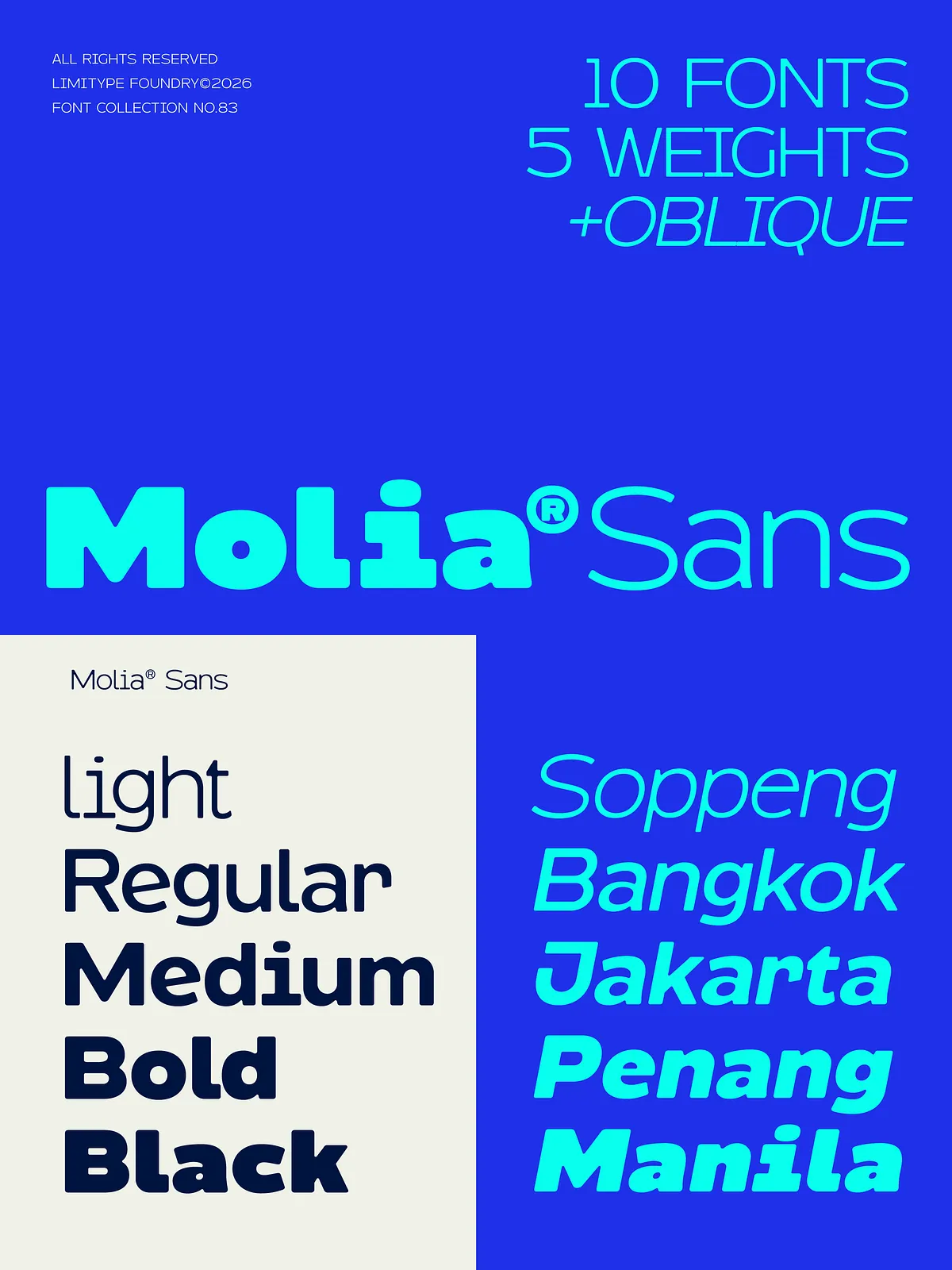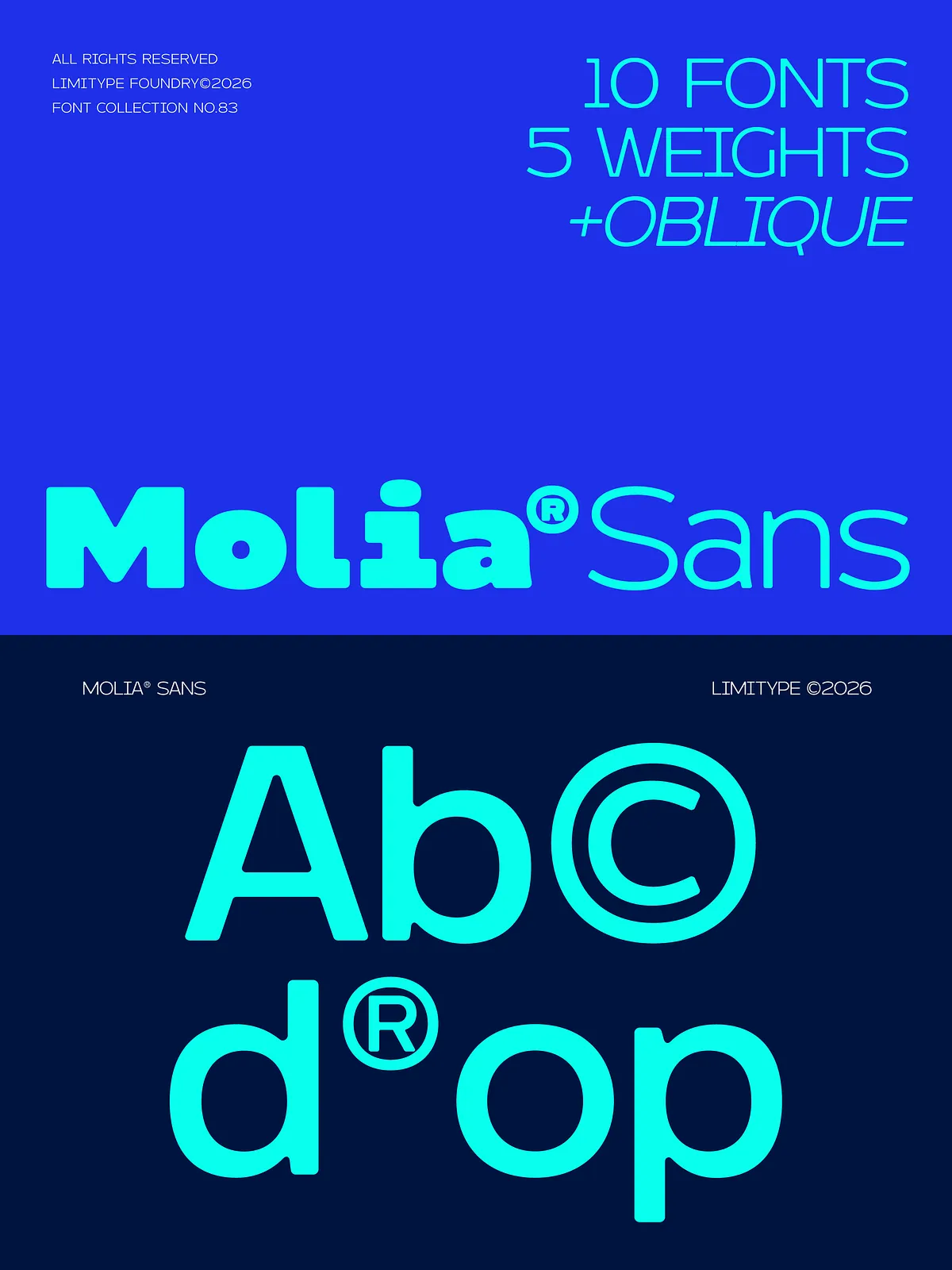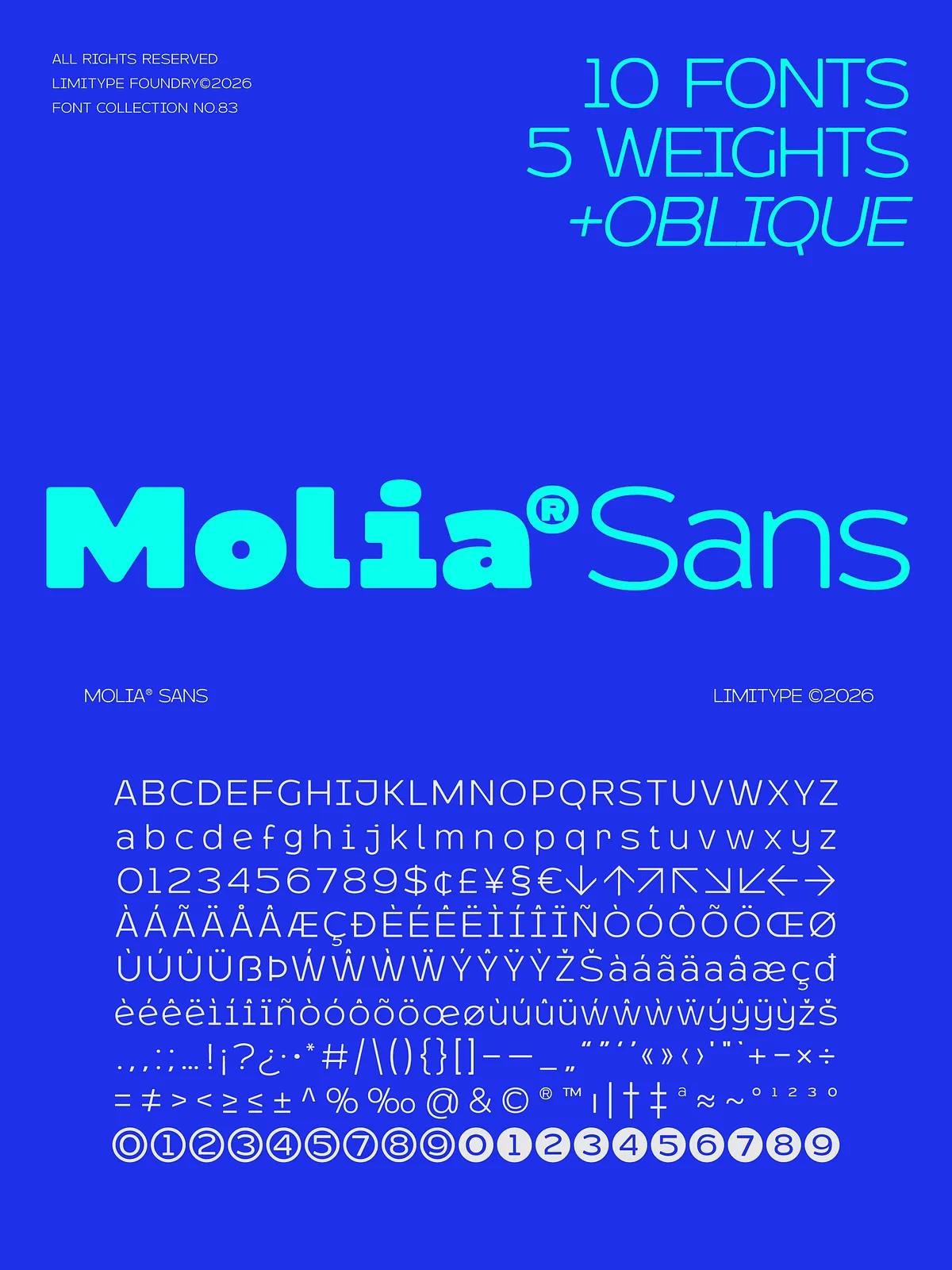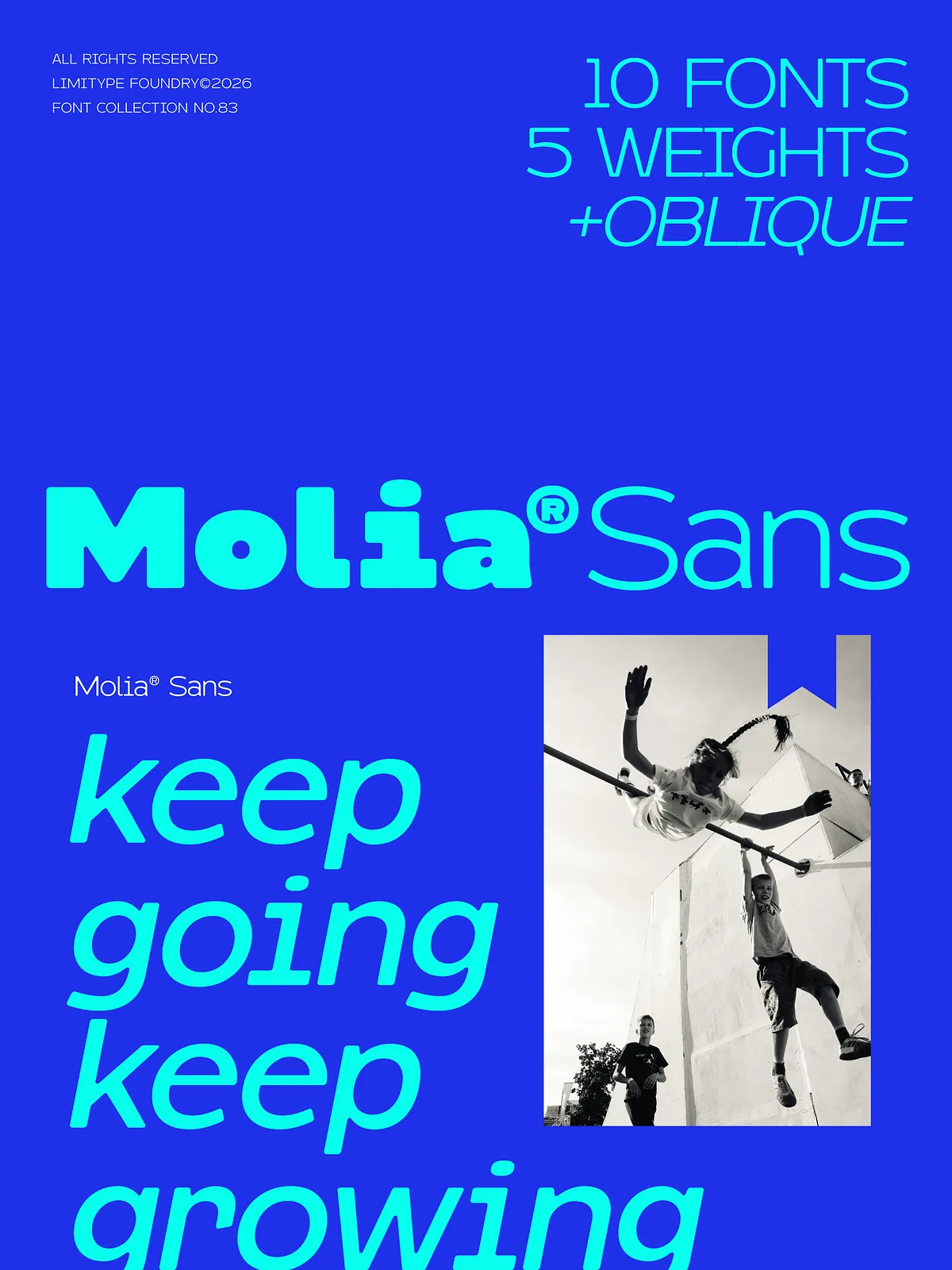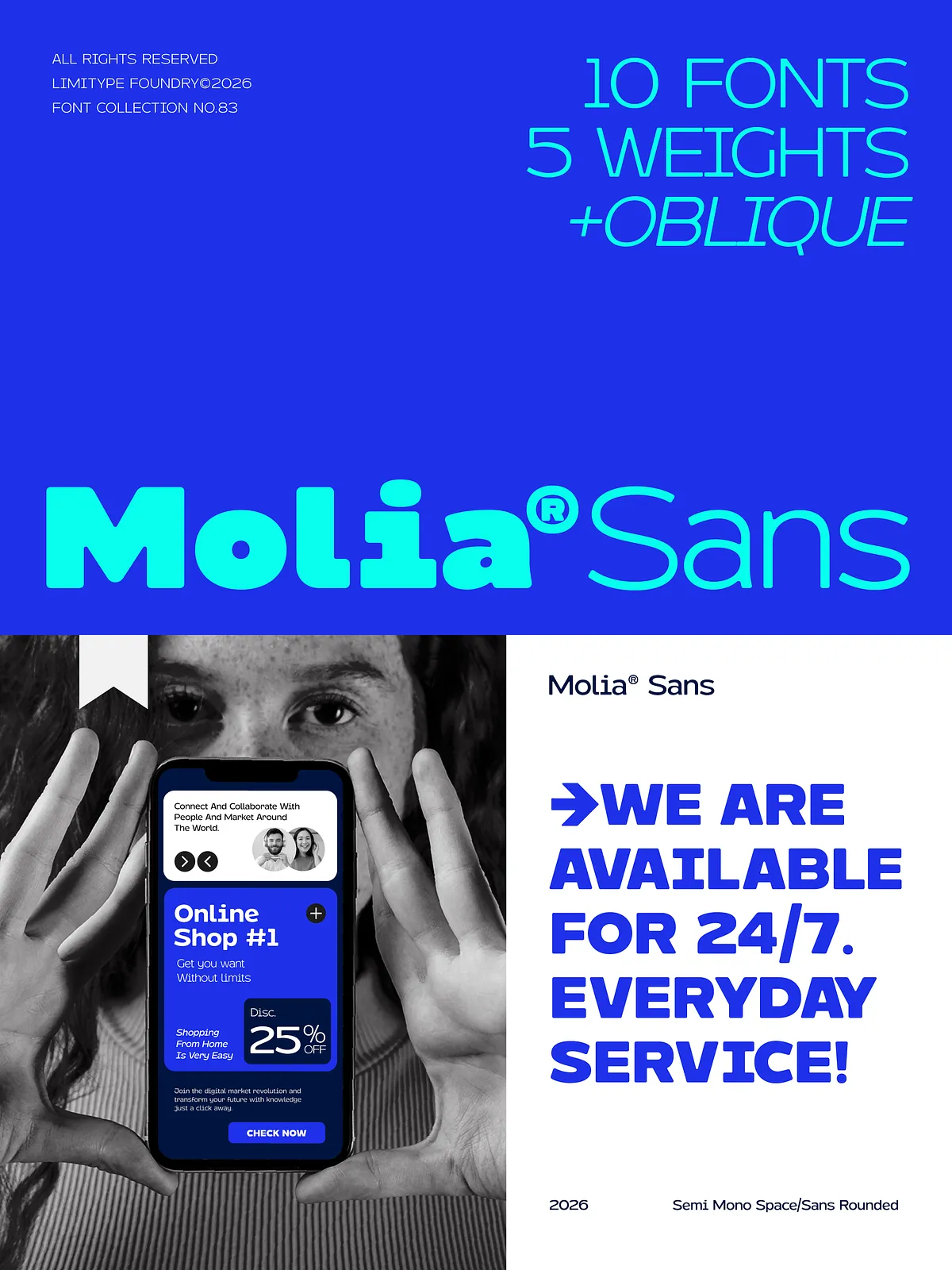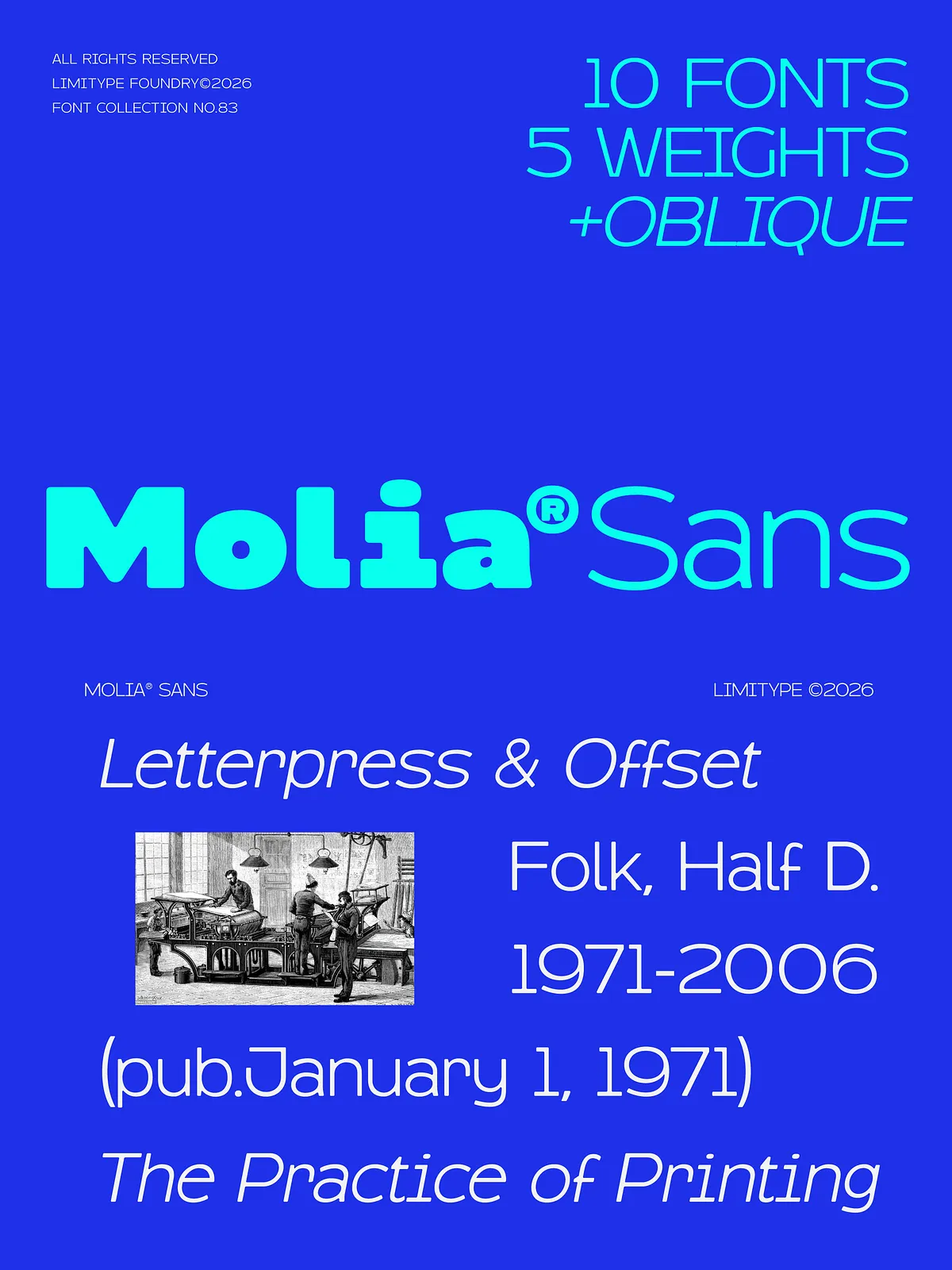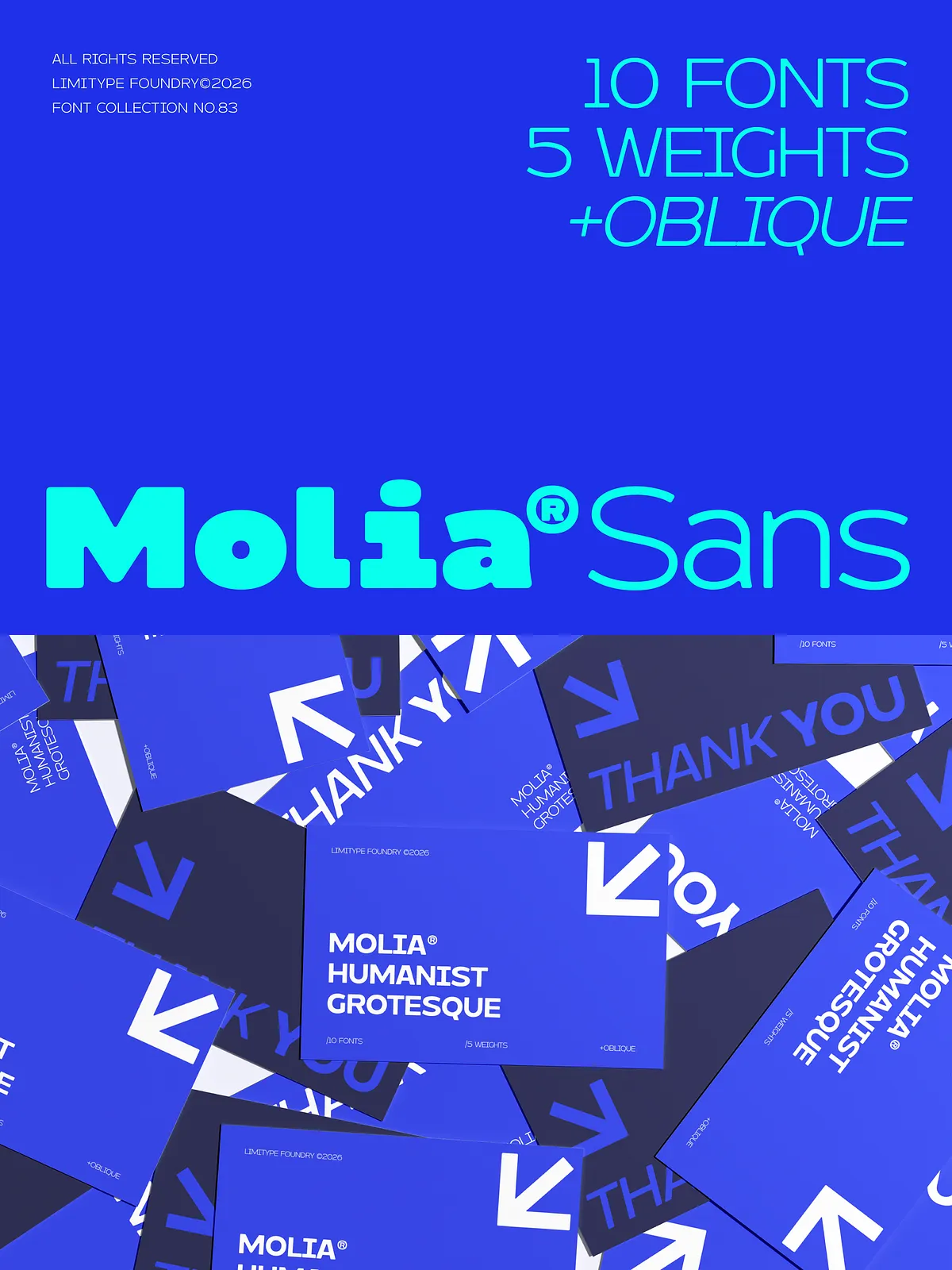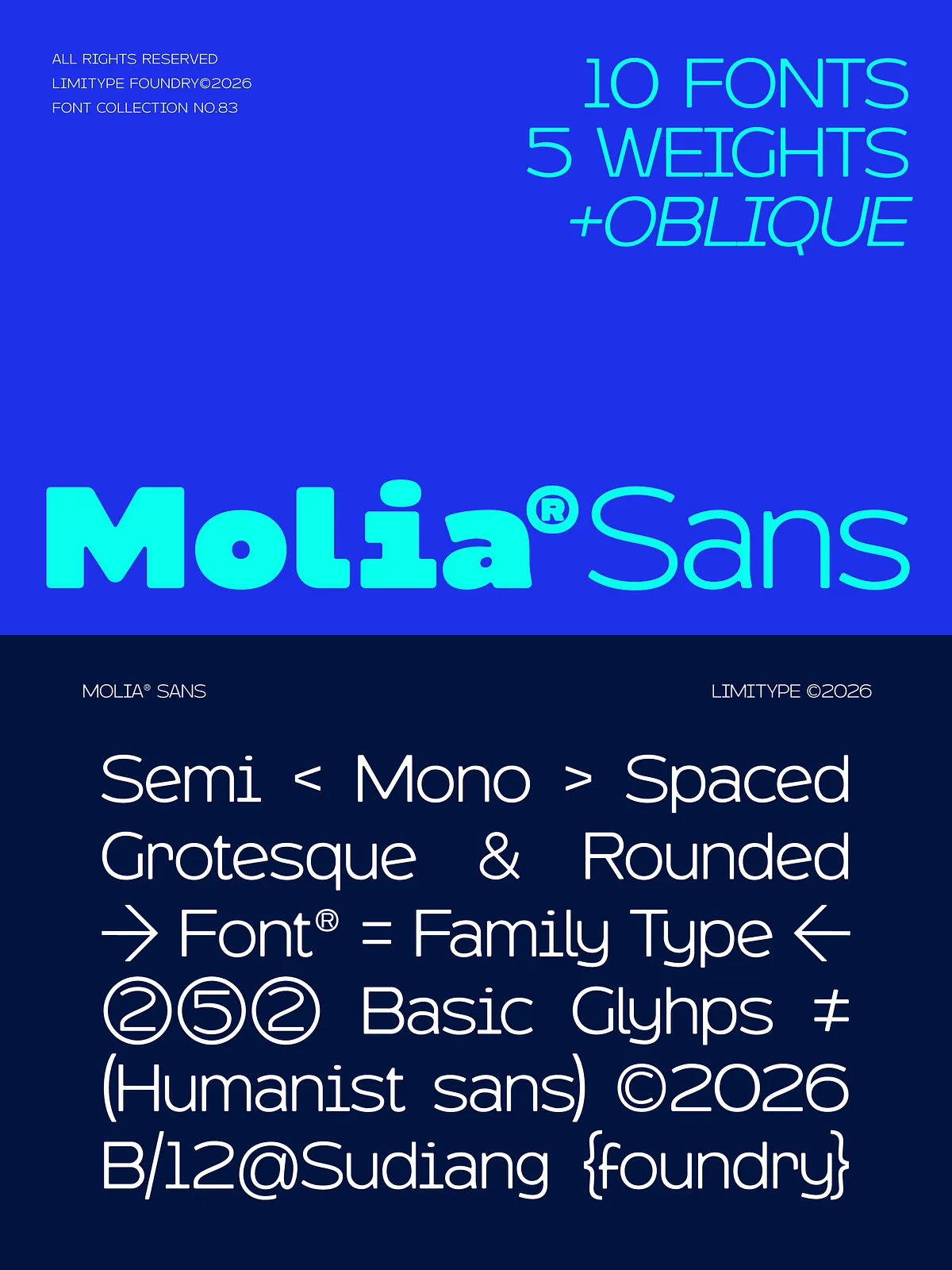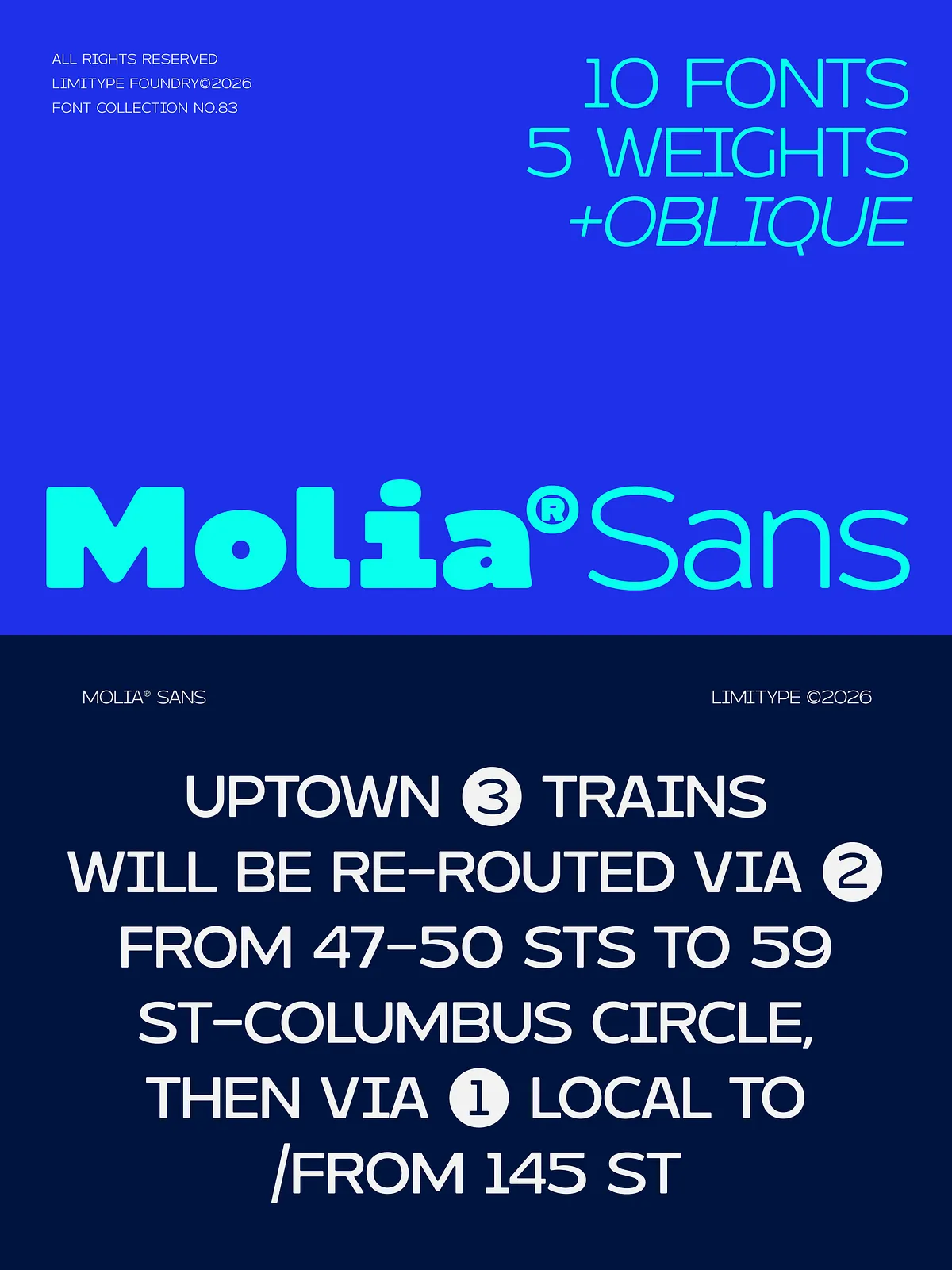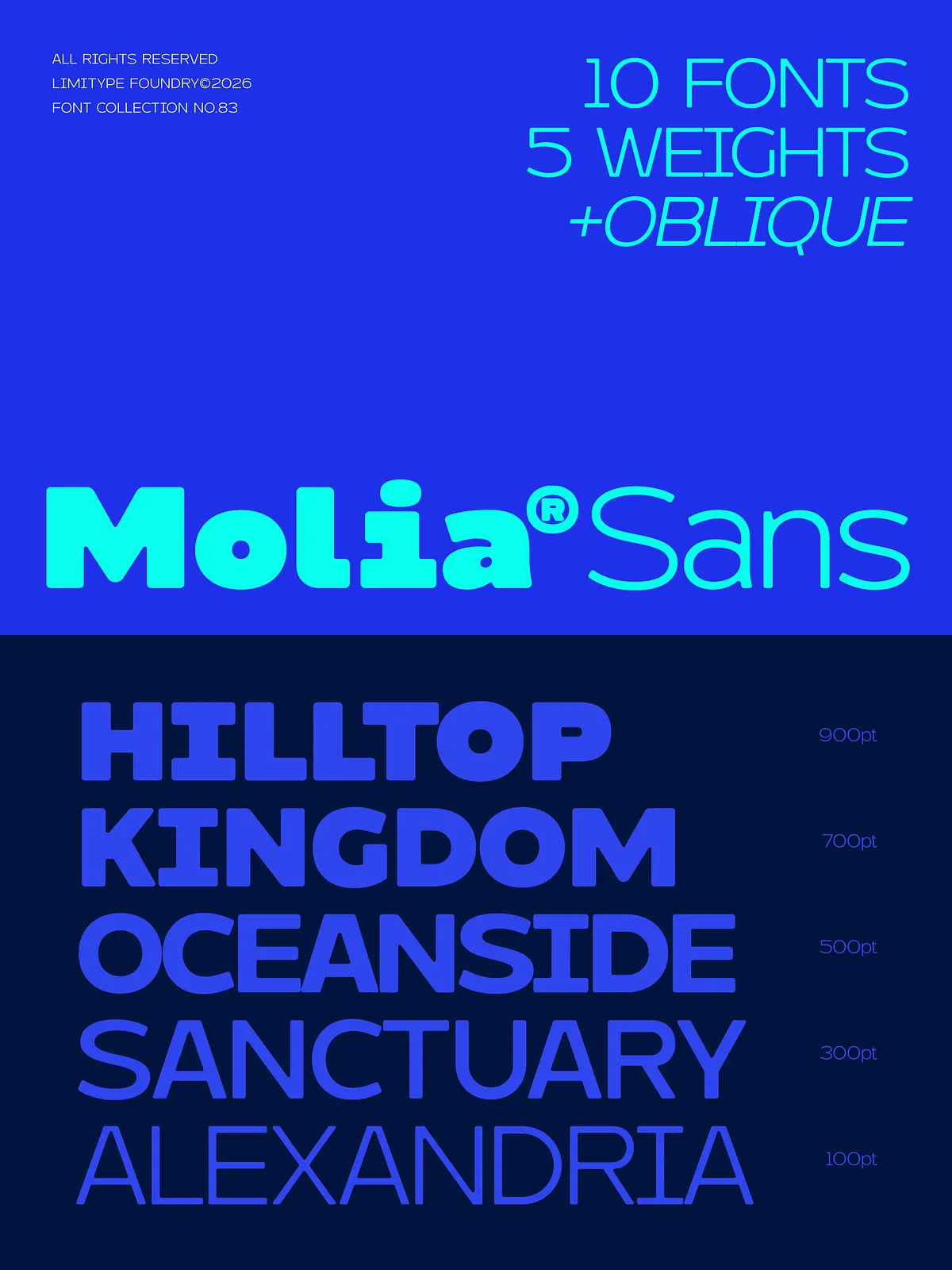
Step into the future of type design with Molia — a bold, modern sans serif typeface engineered for clarity, warmth, and versatility. Blending the structural precision of a semi-monospaced layout with the soft, rounded grotesque forms, Molia strikes a powerful balance between technical accuracy and human-friendly design.
In a world where typography often leans either cold and mechanical or overly decorative, Molia offers a refreshing third path: clarity with soul. It’s built for creatives who demand professionalism without sacrificing warmth — whether you’re building a brand, crafting a digital interface, or designing a striking poster.
Structure That Works Hard, Looks Effortless
Every letter in Molia is meticulously crafted to optimize both form and function. The semi-monospaced layout ensures consistent horizontal alignment and rhythm — perfect for data-driven designs, code snippets, or any layout where visual consistency matters. Yet, unlike rigid monospaced fonts, Molia’s rounded terminals and organic curves give it a relaxed, inviting presence.
Its clean geometric foundation delivers sharp, modern lines, while the subtle rounding adds softness, avoiding the harshness often found in strict geometric sans serifs. The result? A font that looks at home on a sleek app interface, a high-end product brochure, or a minimalist exhibition label.
• Designed for Dynamic Branding
Use Molia as your cornerstone font for brand identities that want to feel confident, modern, and trustworthy. Whether it’s a startup logo, a corporate website, or a packaging design, Molia’s neutral yet compelling presence ensures your message lands with authority.
• Powering Digital Interfaces with Clarity
For UI/UX designers, Molia is a game-changer. Its high legibility at small sizes, balanced x-height, and precise spacing make it ideal for buttons, navigation bars, forms, and instructional text. The rounded shapes reduce visual fatigue, making long reading sessions easier on the eyes.
• Perfect for Editorial & Print Layouts
Journalists, publishers, and editorial designers appreciate Molia’s ability to handle both headers and body text seamlessly. From magazine covers to annual reports, its clean, professional look enhances readability while maintaining visual interest.
Versatility Without Compromise
Molia isn’t just a font — it’s a full typography family designed for real-world workflows. It includes:
- Uppercase and lowercase letters for full language flexibility
- Numbers (0–9) with consistent spacing and alignment
- Symbol sets including punctuation, common mathematical operators, and formatting marks
- Multilingual support for European languages, including diacritics for French, German, Spanish, Italian, and more
- Oblique version for dynamic expression — ideal for emphasizing text without switching fonts
This comprehensive character set ensures Molia serves as your one-stop solution across global projects, from local campaigns to international releases.